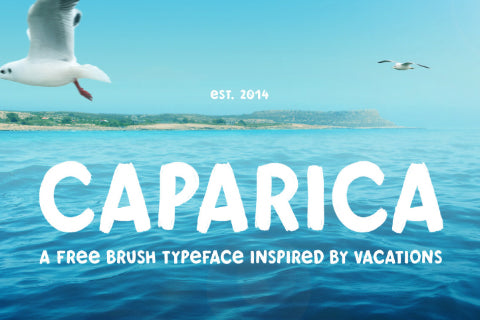
Free Caparica Brush Typeface
Introducing you to the absolutely beautiful free caparica brush typeface. Go give some love to Free Design Resources for creating this top-notch free font. Showcase your designs like a graphic design pro by adding a new touch with this cool font.